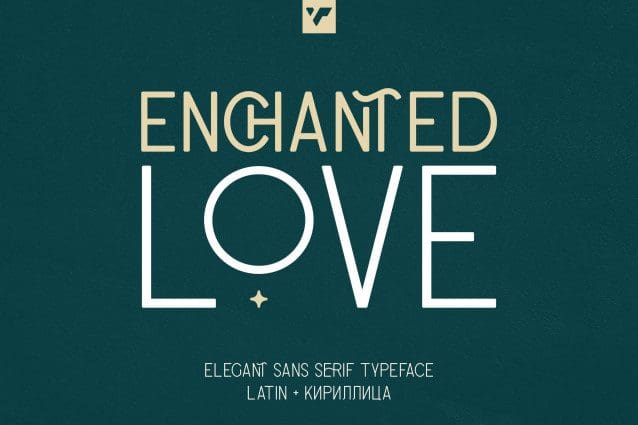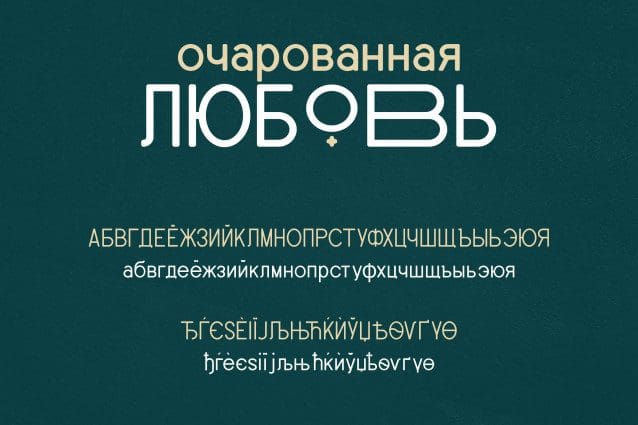
Enchanted Love Font
Enchanted Love Font is classic yet creative typeface loaded with 8 fonts, alternate and ligature glyphs to make you typography truly unique!